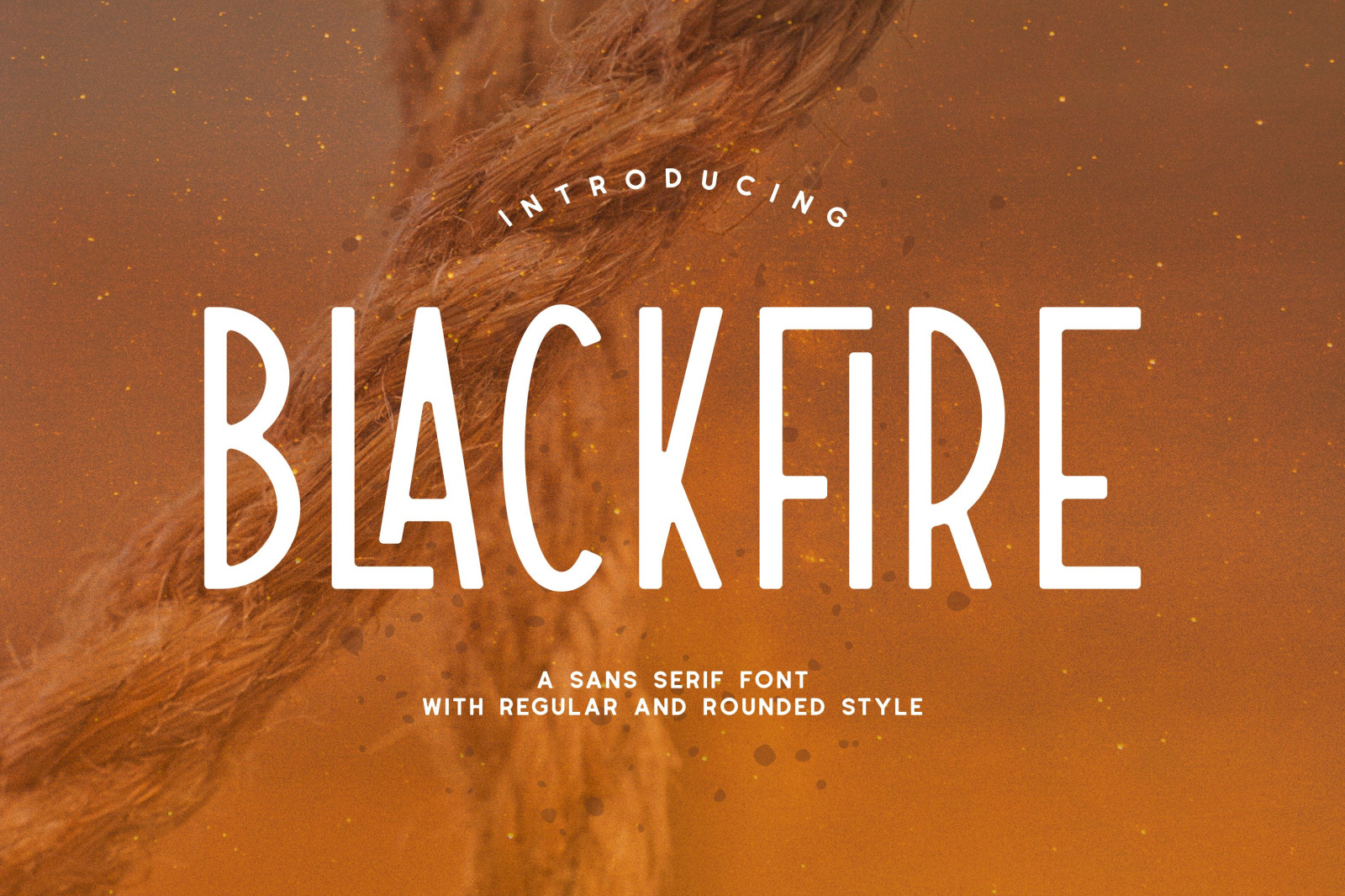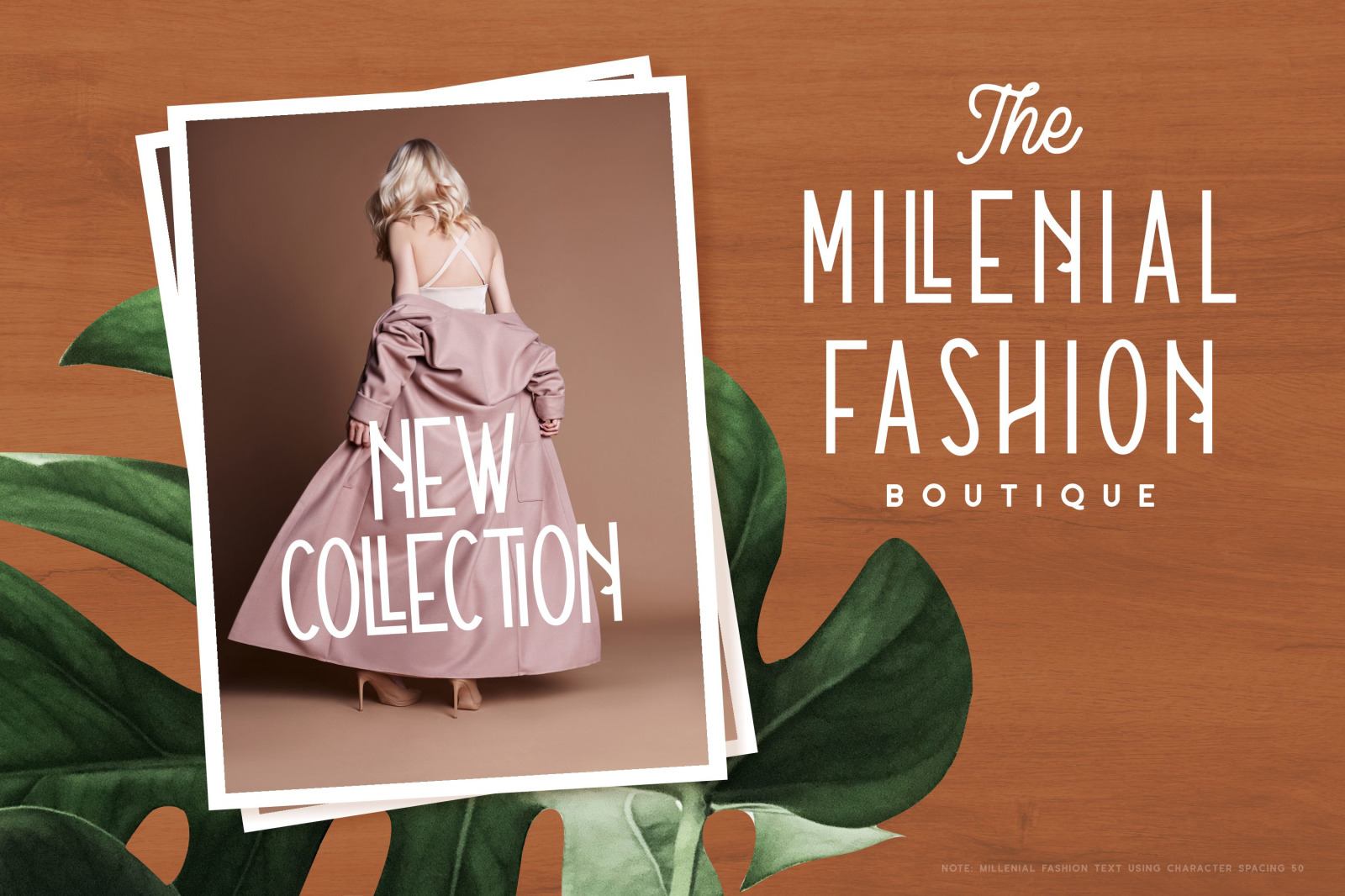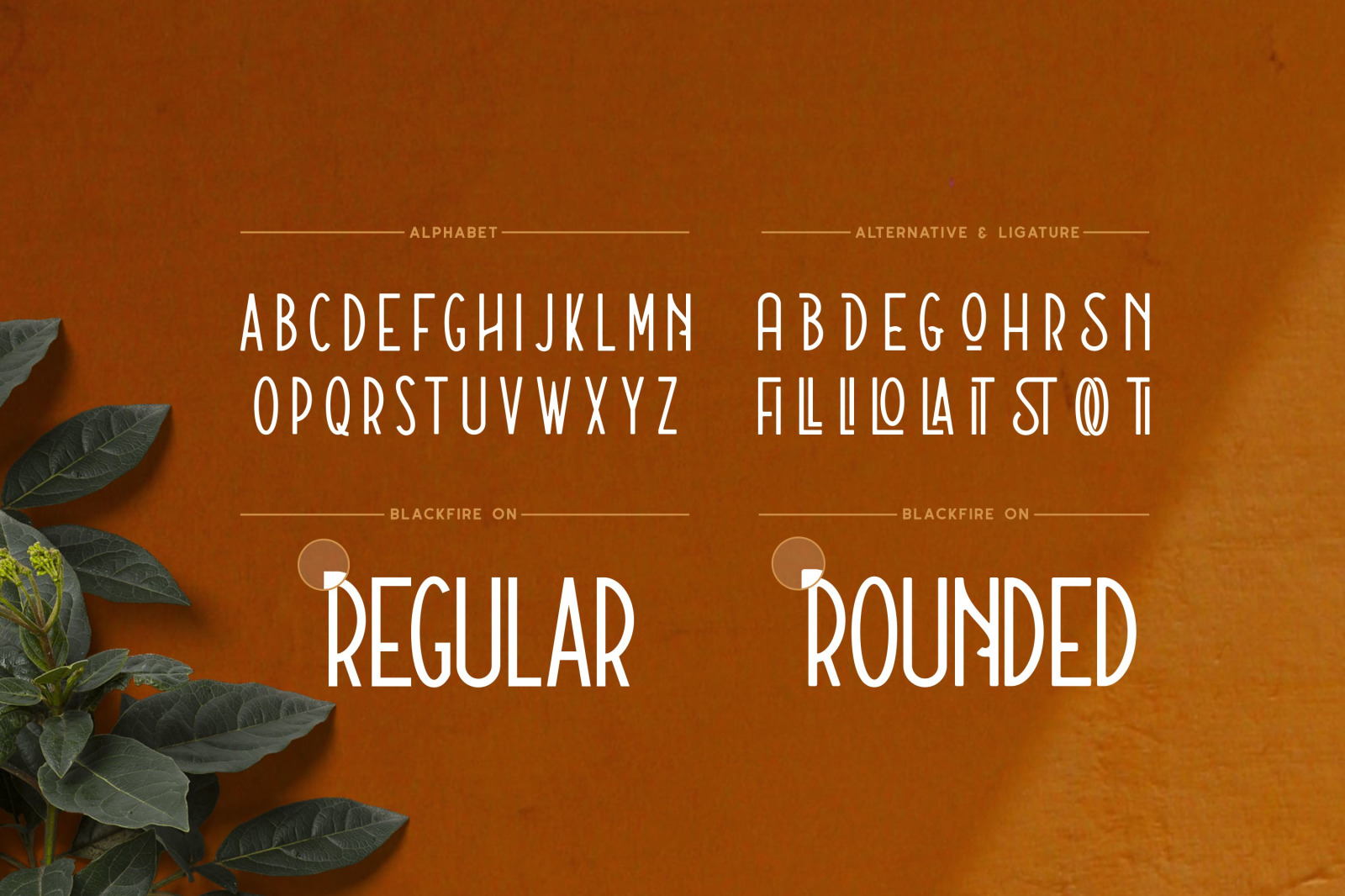
Blackfire Font
Blackfire is a classic sans serif font that features beautiful alternates and ligatures, allowing you to experiment with and create a multitude of stunning results.